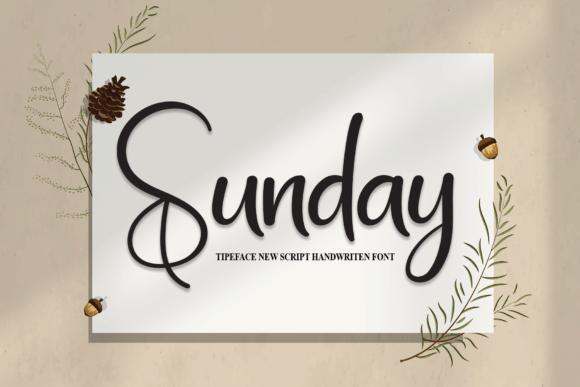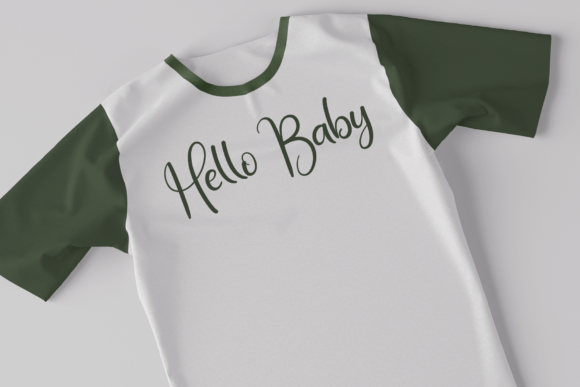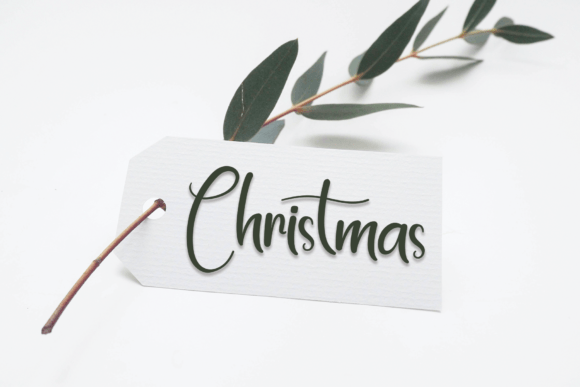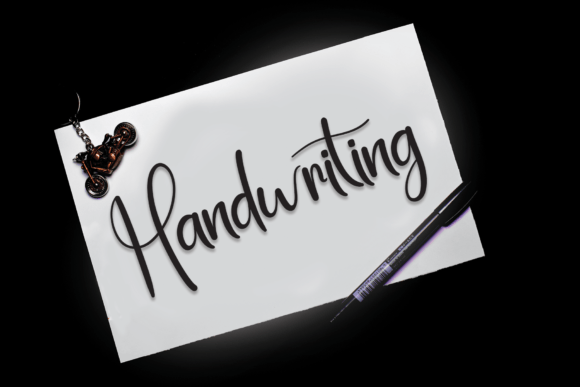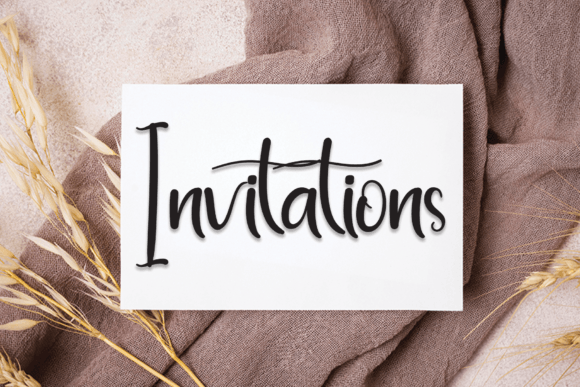
Sunday Font
About Sunday Font
Sunday Font is a sweet and smooth handwritten typeface that brings a playful and romantic touch to your design projects. Its charming curves and cozy flow make it perfect for those looking to add personality and warmth to their work.
Whether you’re creating a wedding invitation, designing a heartfelt greeting card, or preparing a custom logo, Sunday Font blends elegance and friendliness in one unique package. It truly shines in any project that needs a personal and affectionate feel.
Why Choose Sunday Font?
Not all handwritten fonts are created equal. Sunday Font stands out because of its balance between cute aesthetics and strong readability. While some scripts are overly decorative, this one is both stylish and easy to read—making it a great fit for both personal and professional use.
Here are a few reasons to love it:
• Friendly yet elegant: The font’s form feels handmade but polished.
• Versatile usage: Great for cards, posters, wedding sets, and branding.
• Enhanced readability: Its smooth letters ensure your text remains legible at any size.
• Design-ready: Pairs well with illustrations and soft, romantic visuals.
Perfect for a Range of Creative Projects
Because of its lighthearted and approachable design, SundayFont is an excellent choice for:
• Wedding invitations and event stationery
• Romantic social media quotes
• Valentine’s Day or anniversary designs
• Baby shower cards or nursery art
• Feminine branding and product packaging
The font maintains a consistent handwritten tone throughout, which helps convey warmth and sincerity across all your creations.